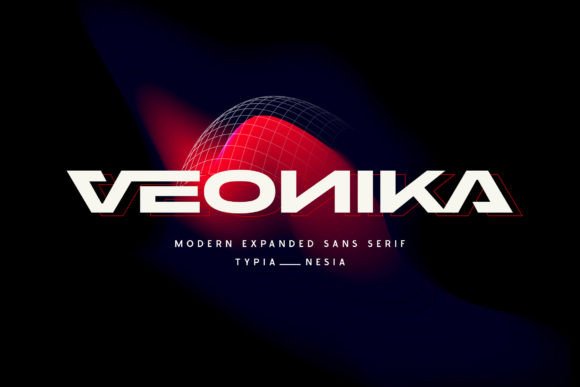
Looking for the best font for academic posters? Look no further than Veonika Font by Typia Nesia! This stylish and modern expanded sans-serif typeface is the perfect choice for creating attention-grabbing headlines and graphic designs that will make your academic posters stand out from the crowd.
With its bold and sophisticated appearance, Veonika Font is sure to make a lasting impression on anyone who sees it. The font's unique ligatures and alternate characters add even more personality and flair to your designs, making them truly one-of-a-kind.
But Veonika Font isn't just a pretty face. This versatile typeface is suitable for a wide variety of design projects, including branding, packaging, advertising, and more. Its clean lines and bold strokes give it a professional and authoritative look that is perfect for academic work.
In addition to its impressive visual appeal, Veonika Font is also incredibly easy to use. Its clear and legible letterforms make it a breeze to read, ensuring that your message will be conveyed loud and clear to your audience.
So if you're looking for a font that will take your academic posters to the next level, Veonika Font is the clear choice. With its unique style, versatility, and ease of use, this font is sure to make your designs stand out and get noticed.